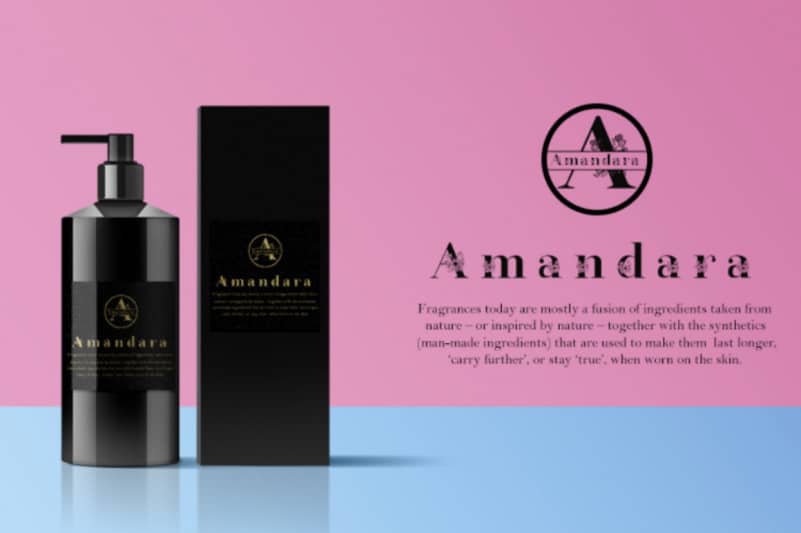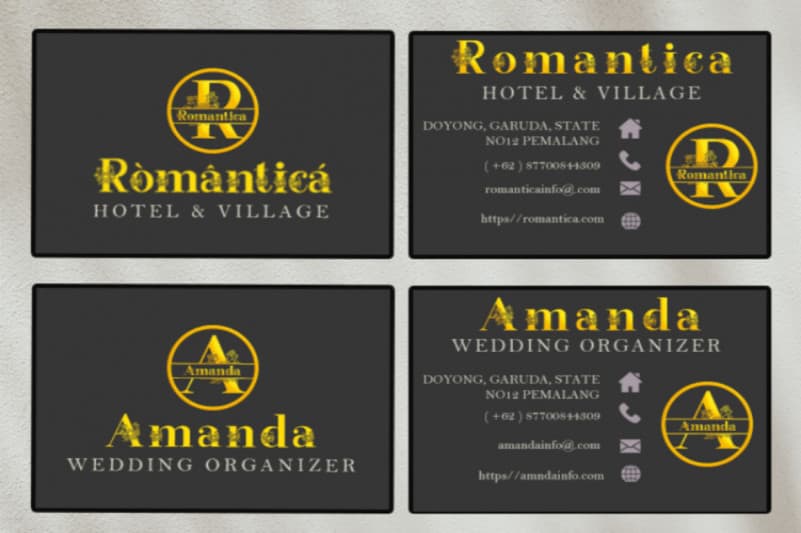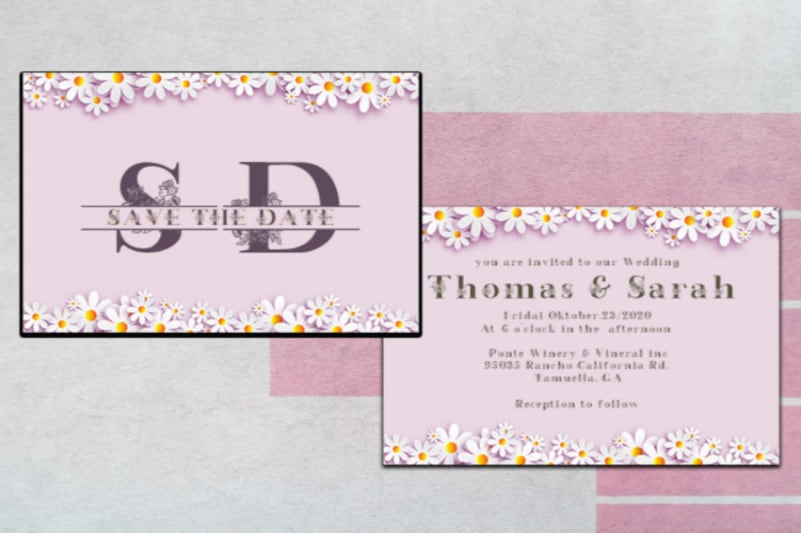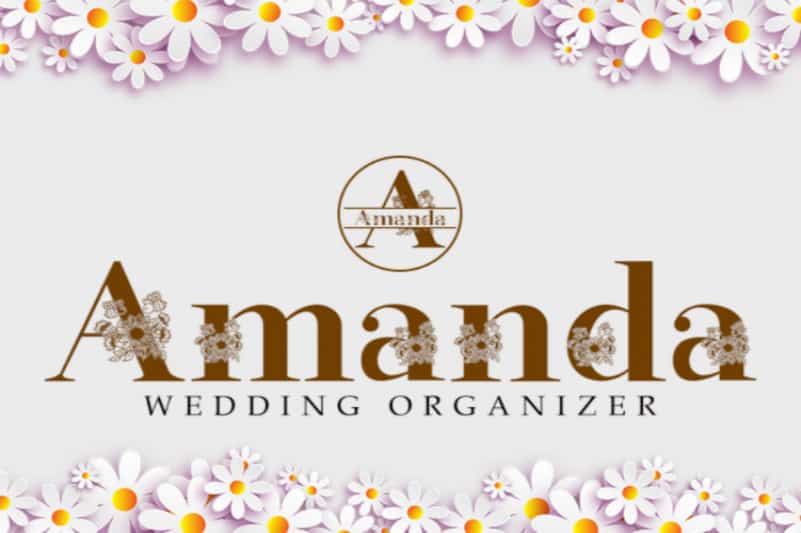
Sunflor Display Font
Sunflor Display Font is an elegant display serif font. Very suitable for the use of nature-themed logos, for wedding invitations, print projects, and posters, magazines and much more.